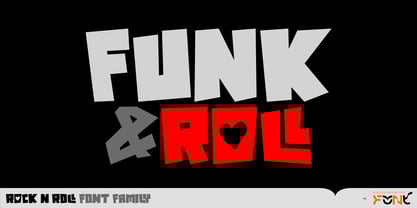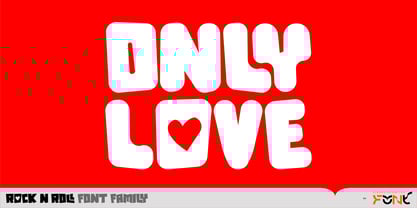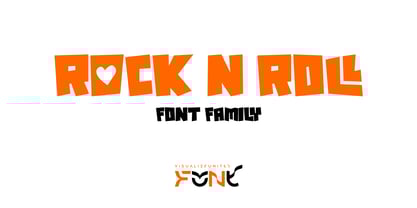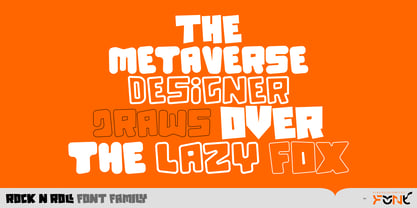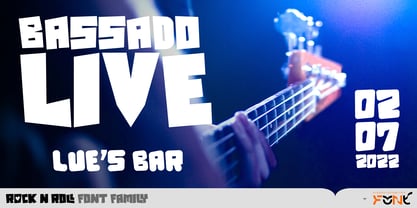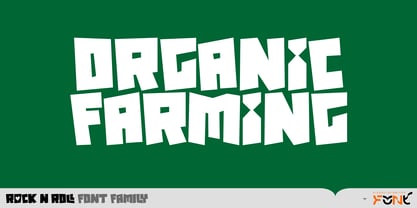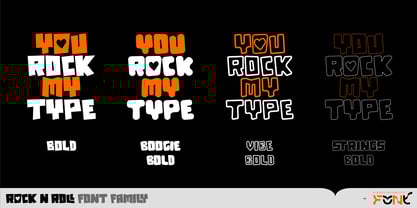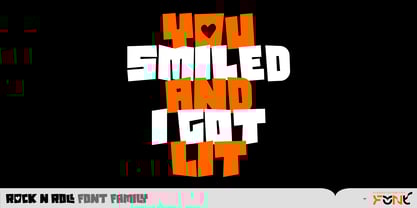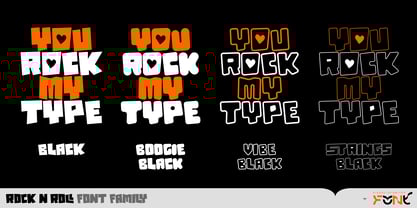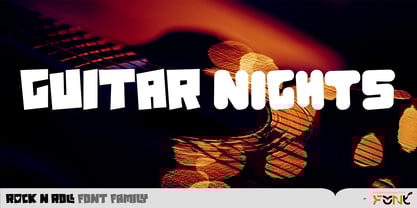
Rock n Roll
by VisualizeUnited Fonts
The Rock n Roll Font Family was designed by Tony Evreniadis and published by VisualizeUnited Fonts. Rock n Roll contains 8 styles and family package options. More about this family
Rock n Roll is a block display typeface, that comes in an English and Greek character set.
It was inspired by graffiti and custom made wooden type. Having a rough look, it feels appropriate for short messaging and titles since its design is dynamic. Posters, labels and any option you can think of, would host beautiful designs, that can stand out!
Designers: Tony Evreniadis
Foundry: VisualizeUnited Fonts